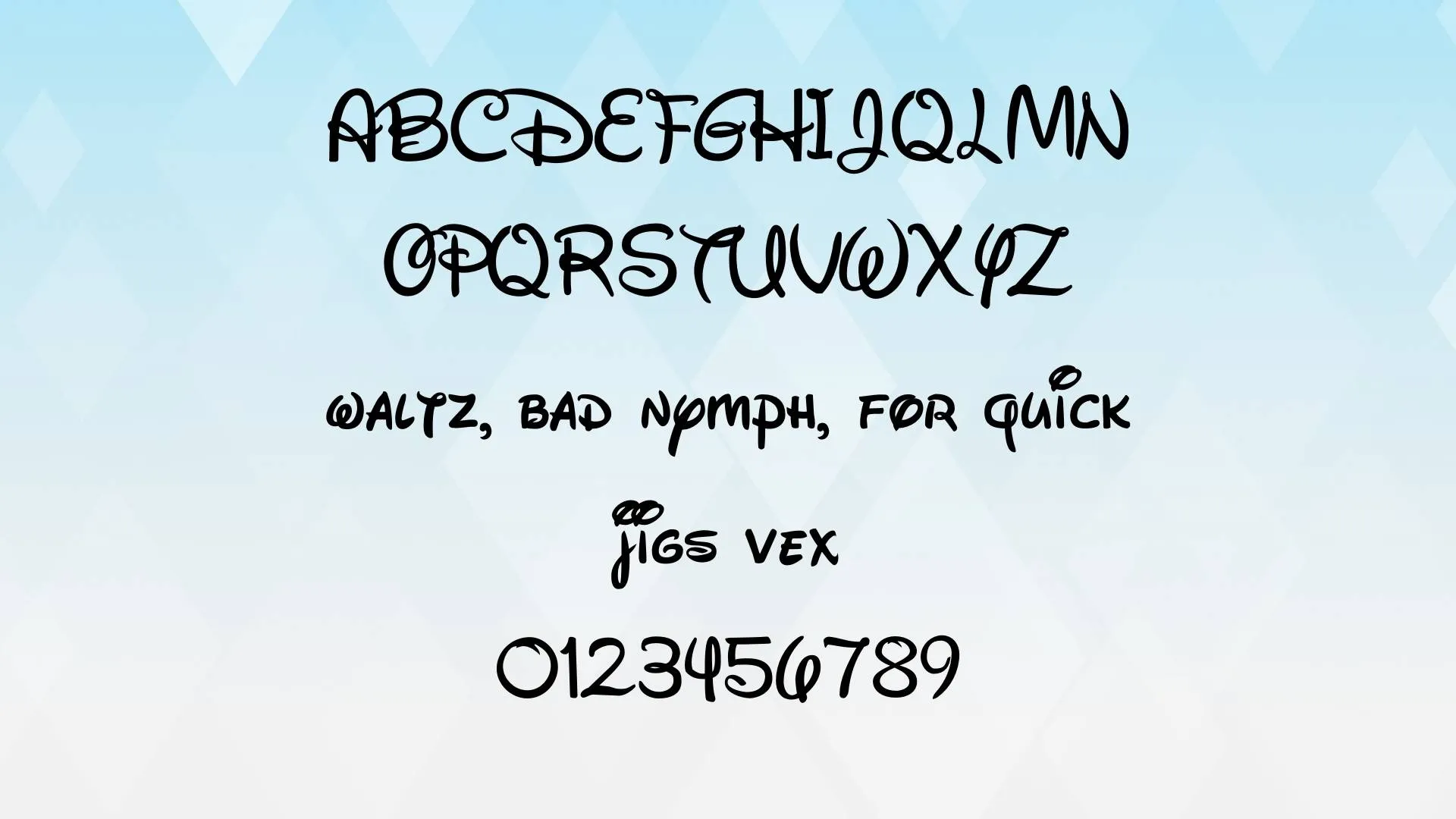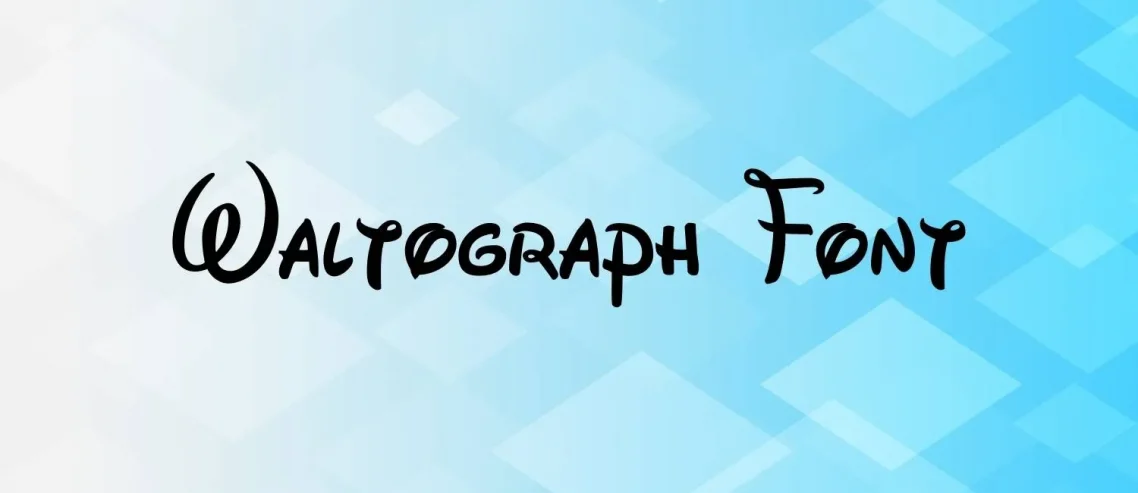
Waltography Font is a very popular beautiful and charming font. This is a very well-known font because This font is also used in the logo of “Walt Disney pictures”. This typeface is free for private projects only.
The typeface has an OpenType layout and TrueType outline features include Uppercase letters and Lowercase Letters, some special characters, numerals/numbers as well as special symbols. This typeface is also very well known due to its copy-paste and pairing function.
View of Waltography Font
| Designer | Justin Callaghan |